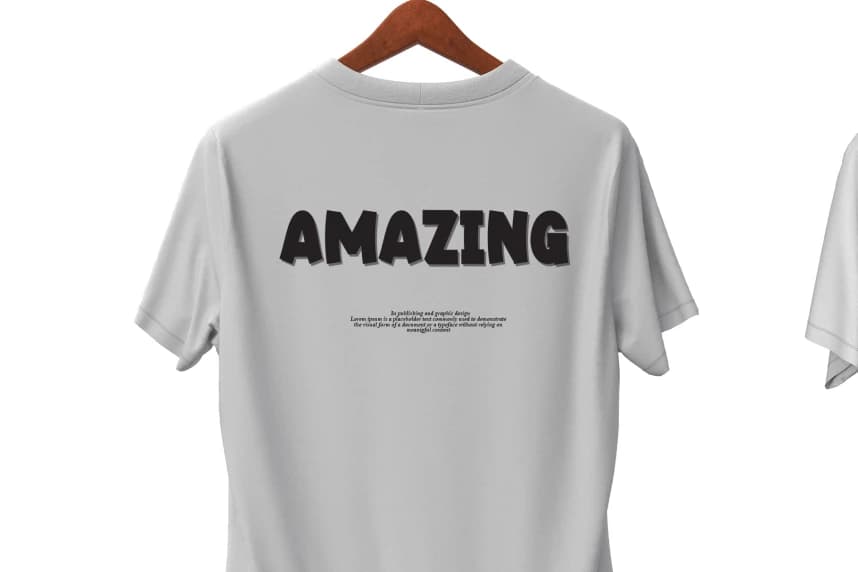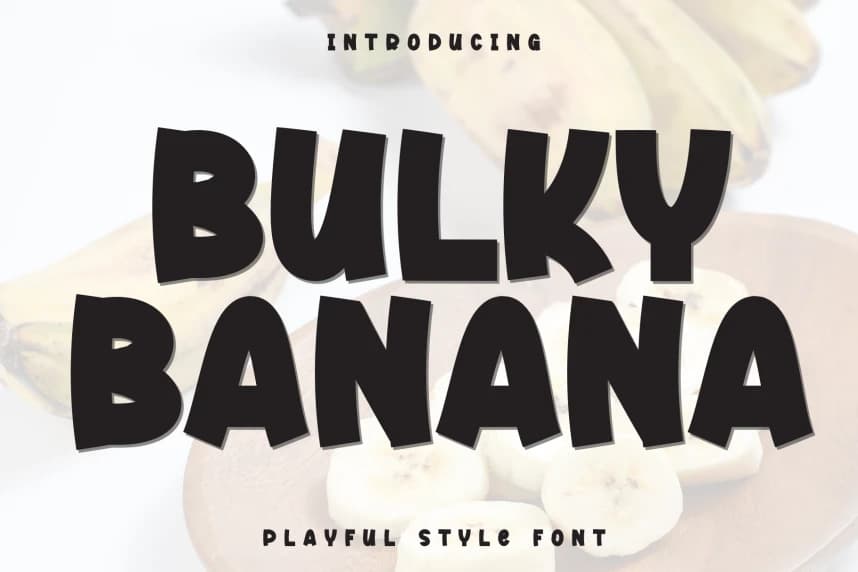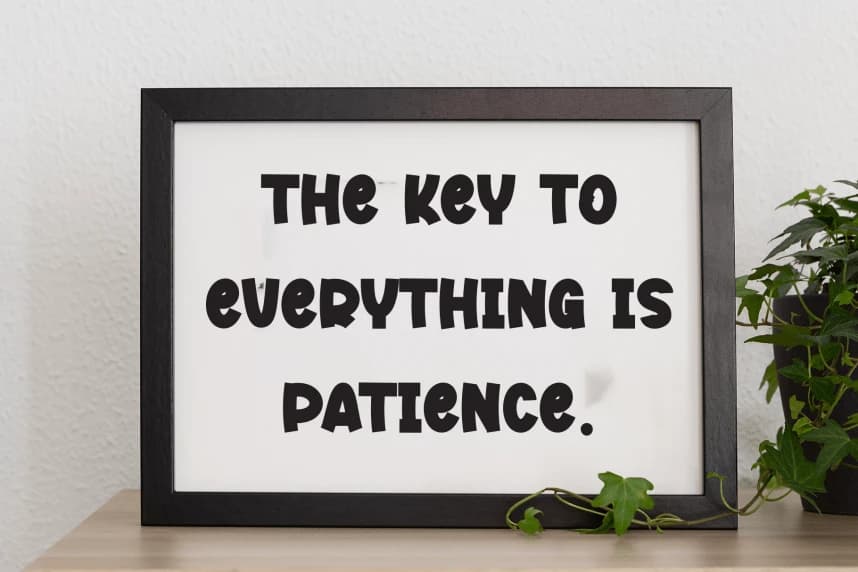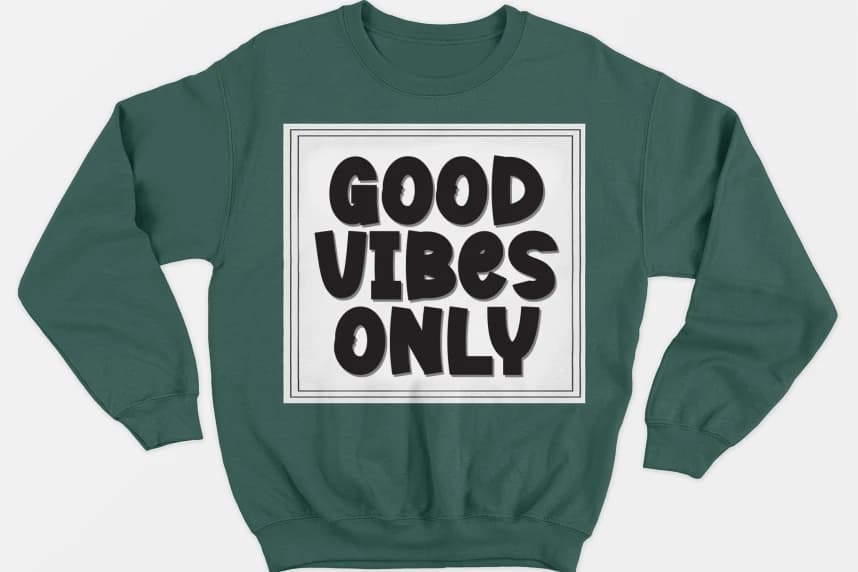
Bulky Banana Script Font
Bulky Banana Script Font is a sweet and friendly handwritten display font. Cute and fun, this font is ideal for writing wedding invitations, cards, or any